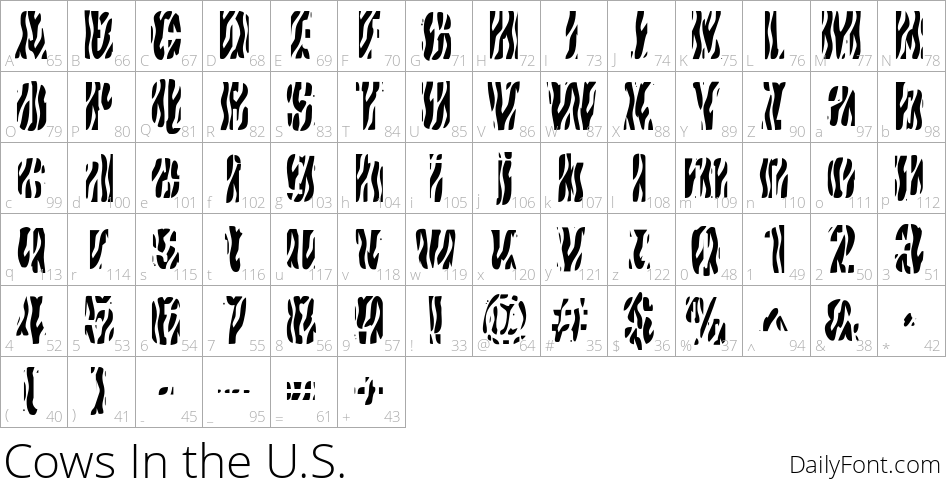
Cows In the U.S.
Bold caps patterned like blotchy black-and-white cowhide
Cows In the U.S. fills its heavy, blocky letterforms with a rough, streaked texture reminiscent of animal hide or camouflage, giving it a distinct novelty look that lives up to its name. It reads as bold and textured rather than clean.
It suits western and farm-themed branding, BBQ and steakhouse logos, playful animal-print packaging, and any design that wants a bold, textured novelty font. Free to download for personal use.